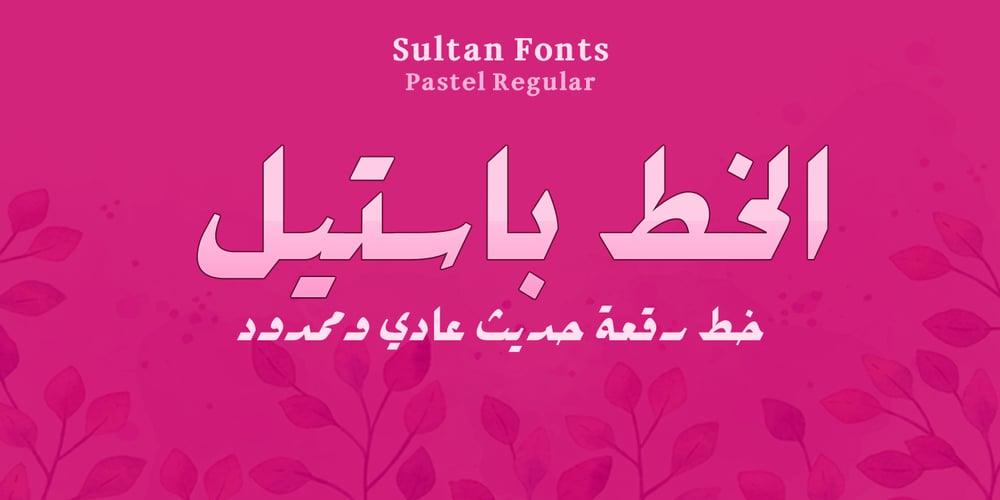
SF Pastel
SF Pastel font
SF Pastel Font Family was designed by Sultan Maqtari and published by Sultan Fonts. SF Pastel contains 2 styles and family package options. About Pastel font family: Pastel font is a simplified Arabic digital Ruqah font, which adopts horizontal formatting characters, The font is available in two styles: Pastel Regular and Pastel Bold. The difference between the two fonts: The Pastel regular font has short ends, The Pastel bold has extended and extended characters. Pastel font for desktop applications Pastel is suitable for large display sizes, especially in the area of advertising, while still functioning well as a text face. The font includes a matching Latin design and support for Arabic, Persian, Kurdish and Urdu. Language families: Arabic, Persian, Urdu, Latin, Kurdish Designer: Sultan Maqtari Design date: 2020